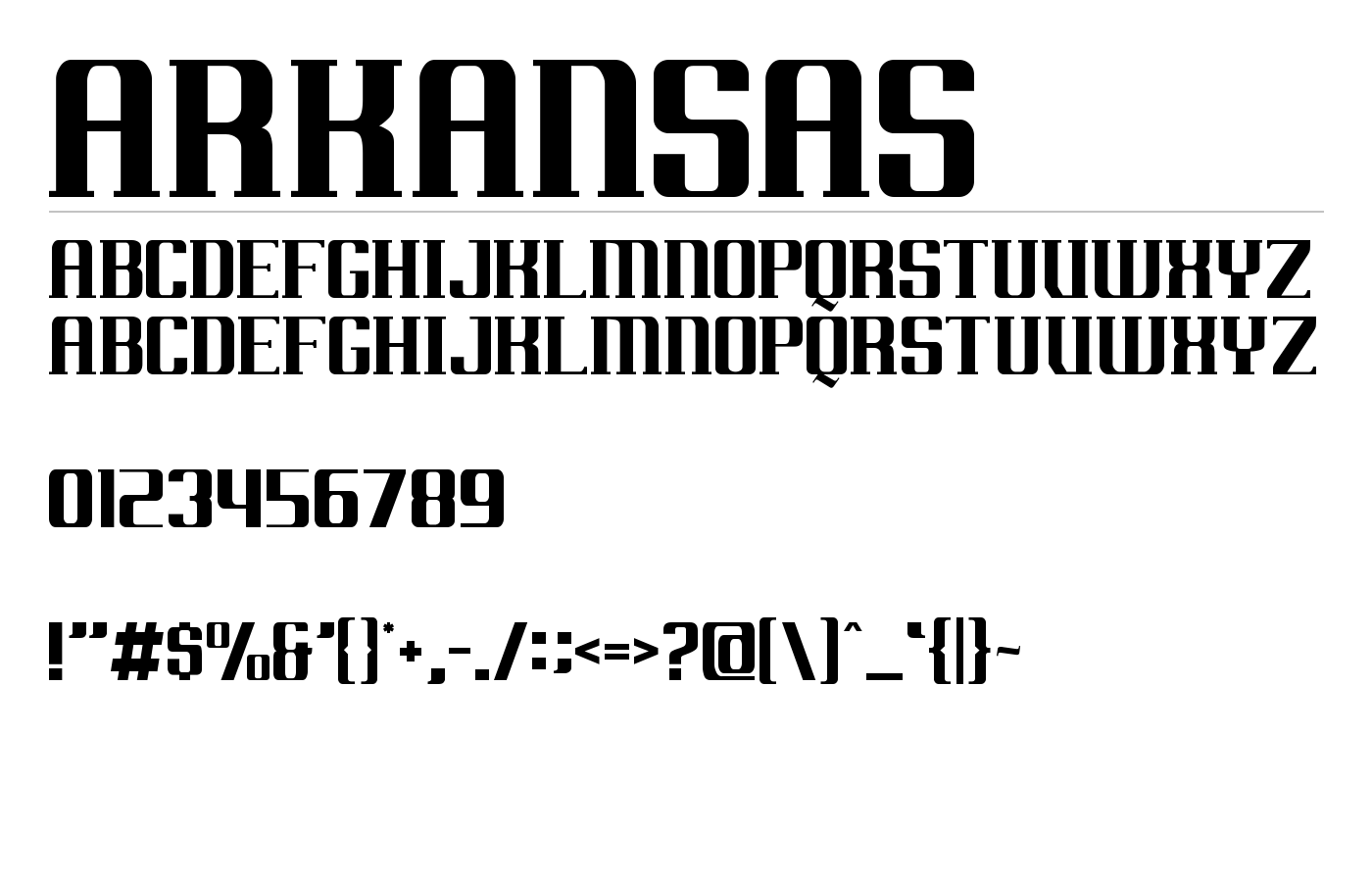
Arkansas is a bold and condensed slab serif font with strong geometric shapes and sharp edges, giving it a powerful, industrial feel. Its high contrast between thick and thin strokes, along with squared-off serifs and uniform uppercase letterforms, make it ideal for impactful headlines, posters, and branding that needs to convey strength and authority. This font works well in designs that seek a vintage yet modern vibe, especially for fashion, editorial, and display uses where attention-grabbing style is key.
Arkansas Font
About Arkansas Font